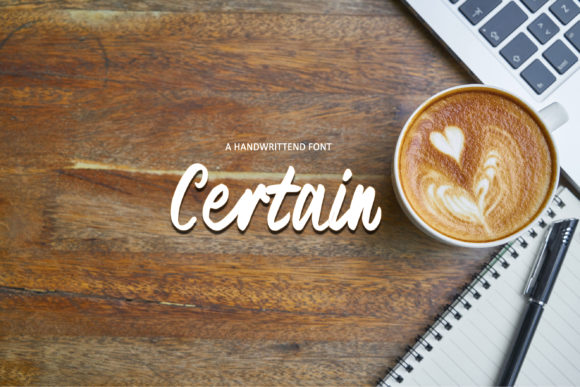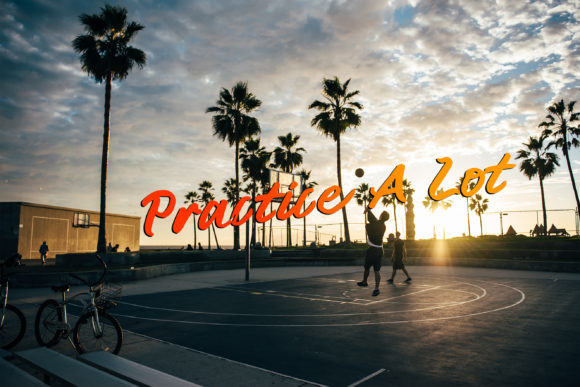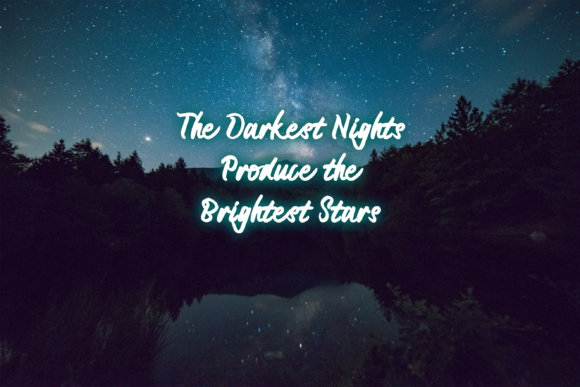
Certain Font
About Certain Font
The Certain is a bold and italic handwriting font. It has a fresh and modern style and can be used for logos, branding, greeting cards, posters and much more!